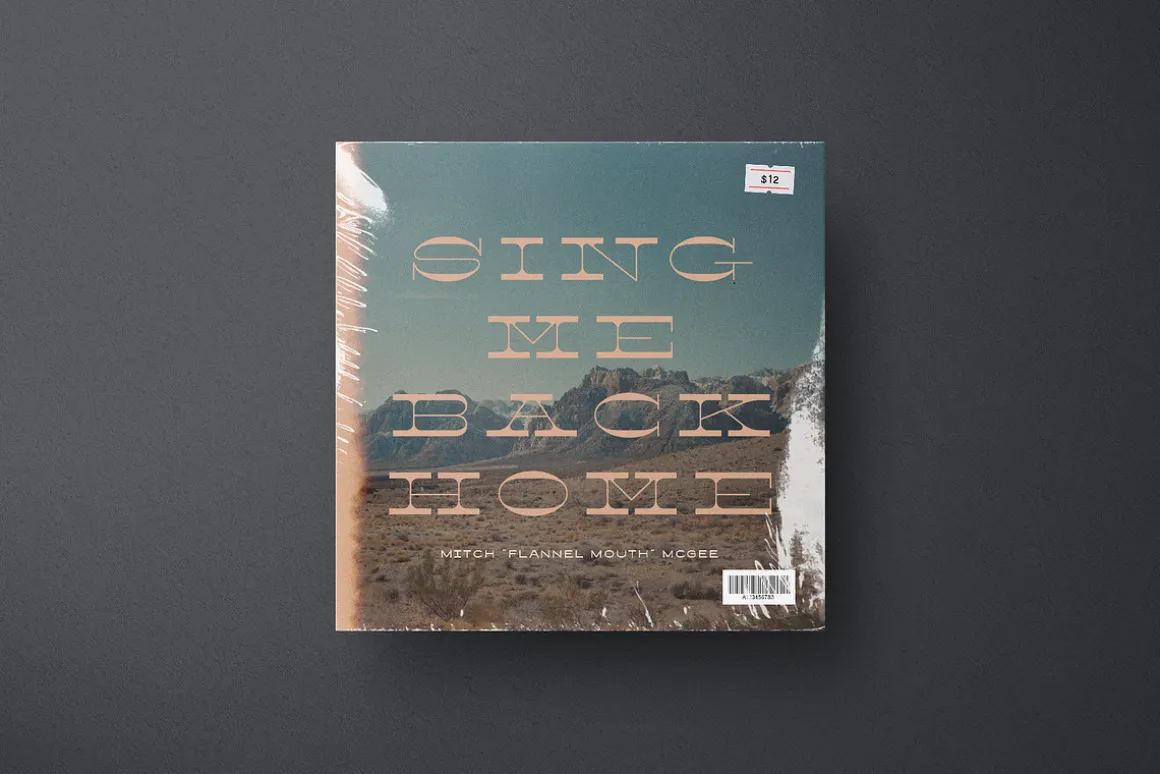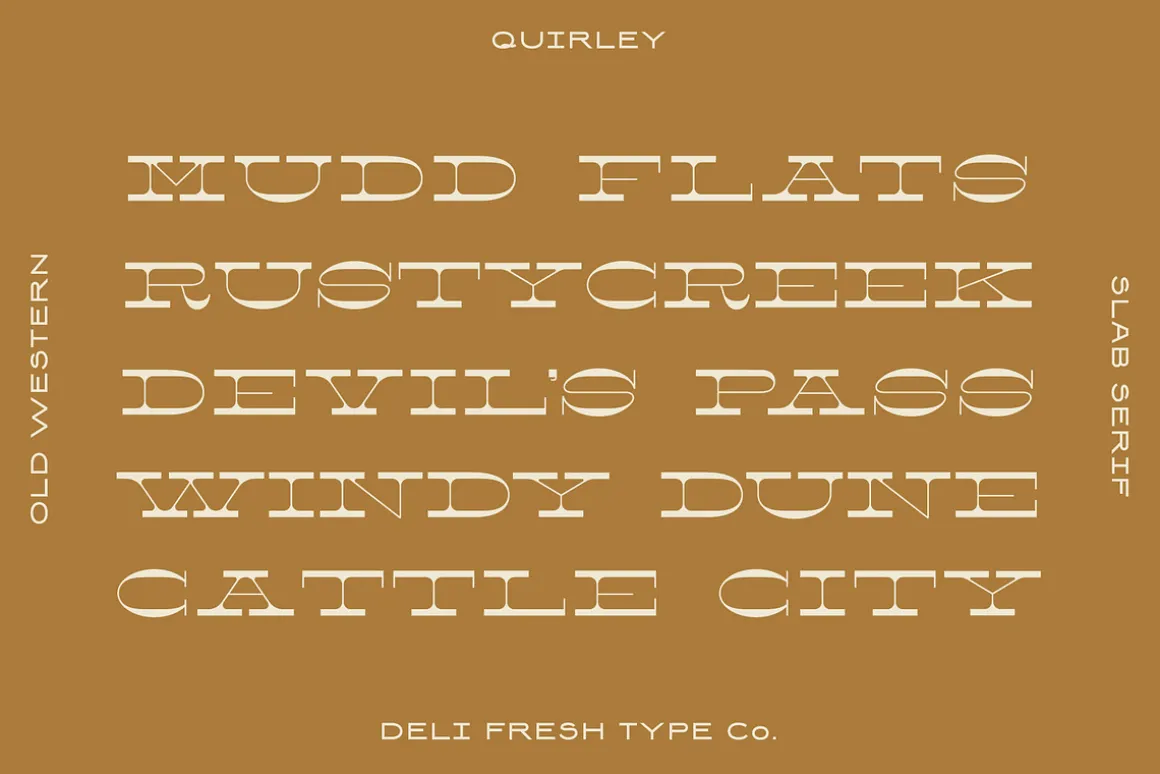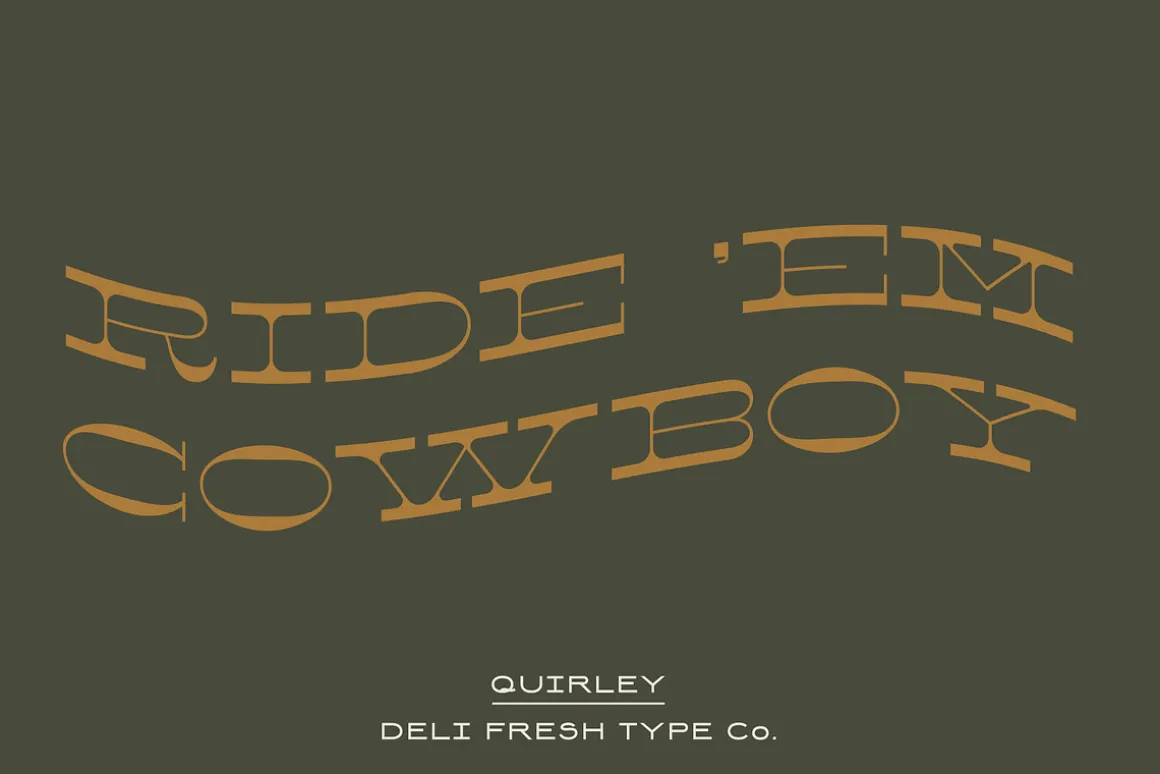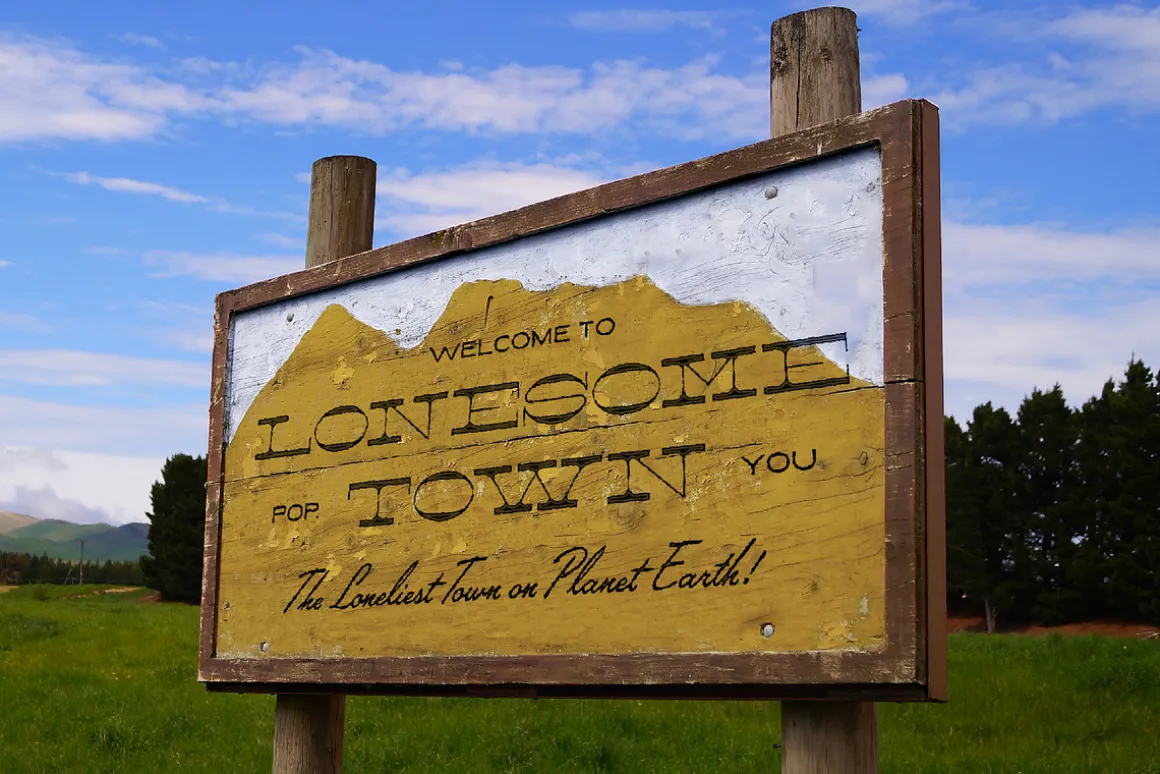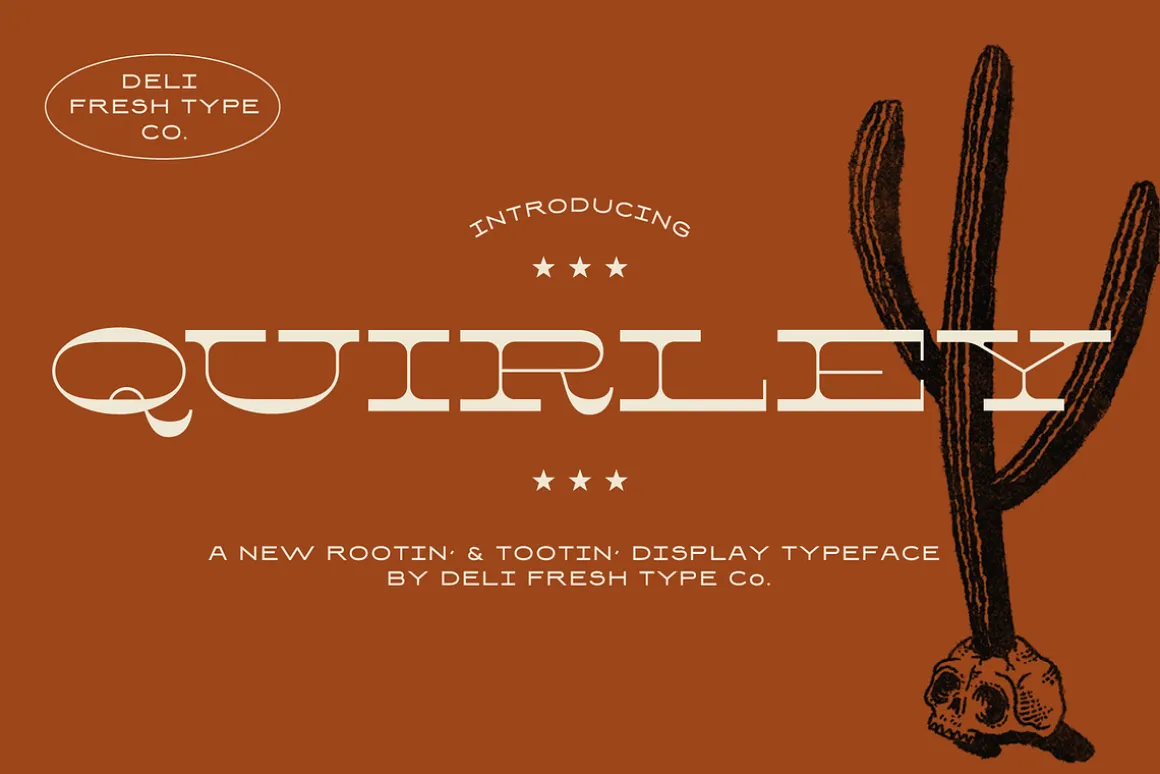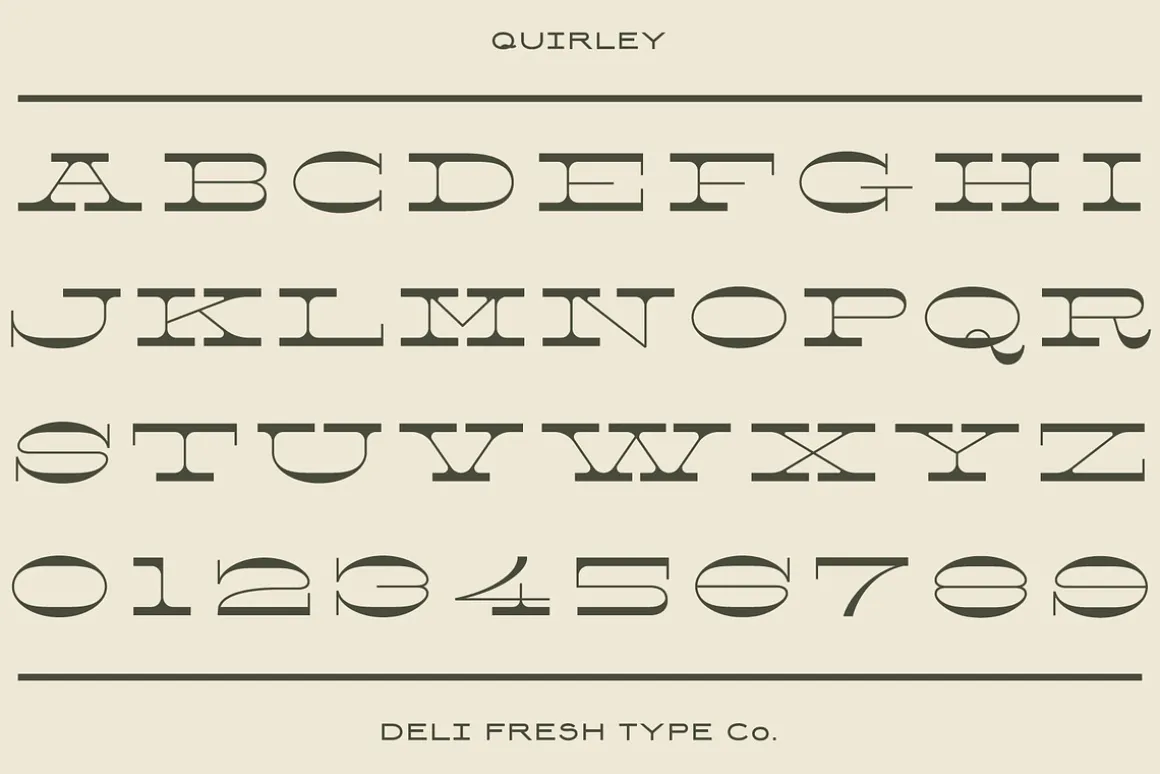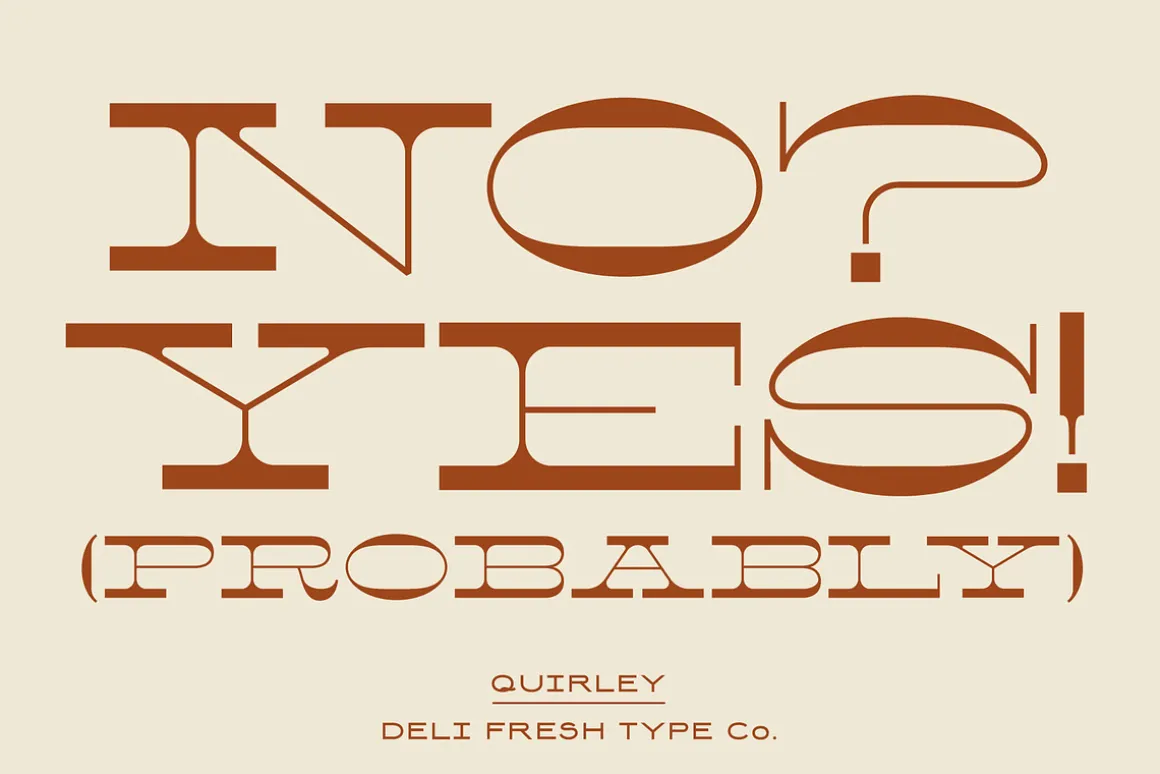
A reverse contrast sans serif with western flair.
This rootin’ typeface comes with capitals, numerals, and a smattering of special characters and punctuation marks.
A reverse contrast sans serif with western flair.
This rootin’ typeface comes with capitals, numerals, and a smattering of special characters and punctuation marks.